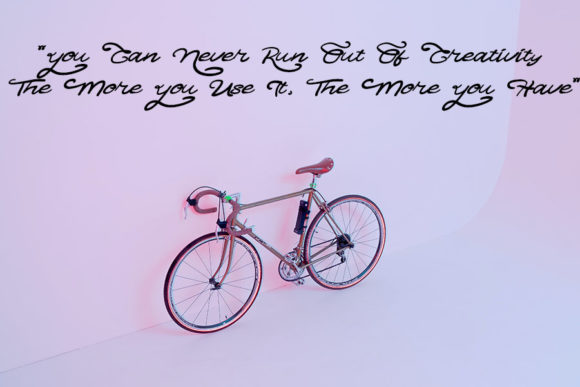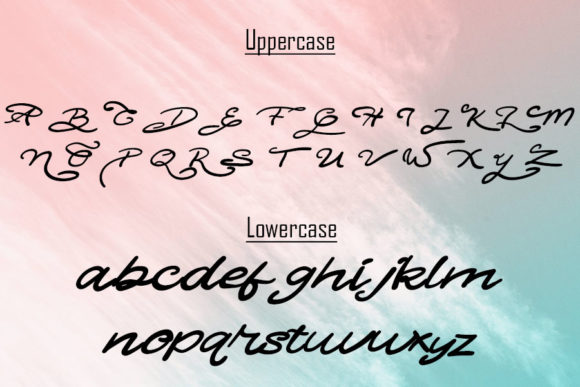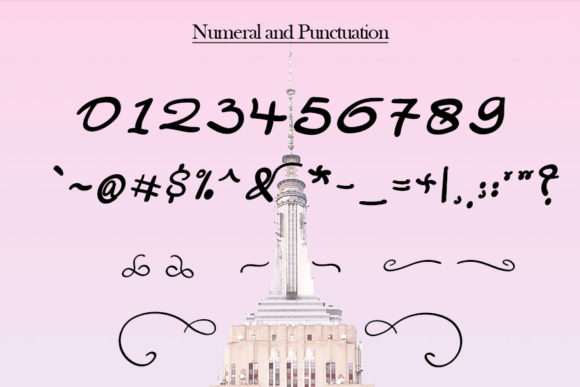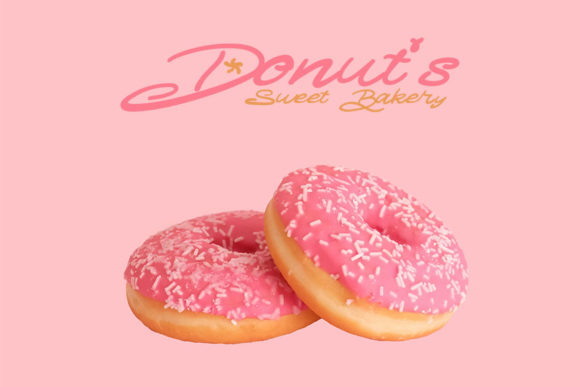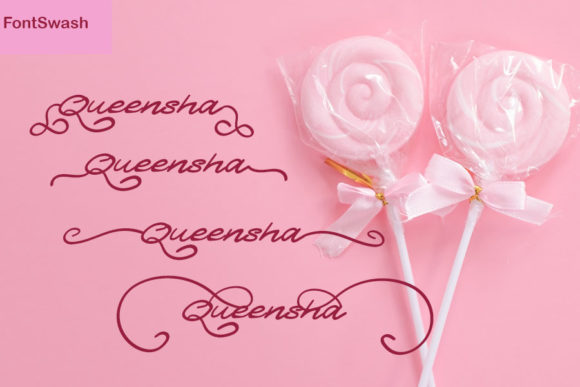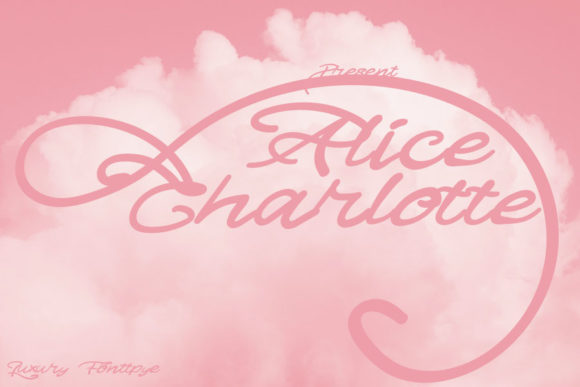
Alice Charlotte Font: Elevate Your Creativity with this Unique Handwritten Font
Are you a designer, crafter, or creative enthusiast looking for a font that can take your projects to the next level? Look no further than the Alice Charlotte font, a beautifully designed handwritten font that is sure to become a true favorite in your collection. In this article, we’ll dive into the features and benefits of the Alice Charlotte font, and explore how it can help you bring your creative ideas to life.
A Unique and Elegant Design
The Alice Charlotte font is a one-of-a-kind handwritten font that exudes elegance and sophistication. Its unique design makes it perfect for a wide range of creative projects, from branding and advertising to crafting and DIY tutorials. The font’s flowing lines and delicate curves give it a personal and approachable feel, making it ideal for projects that require a touch of warmth and personality.
One of the standout features of the Alice Charlotte font is its PUA (Private Use Area) encoding. This means that all glyphs and swashes are easily accessible, allowing you to get creative with your projects without any hassle. With PUA encoding, you can access a wide range of special characters, including ligatures, ornaments, and swashes, giving you endless possibilities for customization and design.
The Alice Charlotte font is incredibly versatile, making it suitable for a wide range of creative projects. Here are just a few ideas to get you started:
- Branding and Advertising: Use the Alice Charlotte font to create stunning logos, business cards, and marketing materials that showcase your brand’s personality and style.
- Crafting and DIY: Add a personal touch to your crafting and DIY projects, such as handmade cards, gift tags, and journal pages, with the Alice Charlotte font.
- Social Media Graphics: Create eye-catching social media graphics, including Facebook posts, Instagram stories, and Pinterest pins, using the Alice Charlotte font.
- Web Design: Use the Alice Charlotte font to add a touch of elegance and sophistication to your website or blog.
Why Choose the Alice Charlotte Font?
So why choose the Alice Charlotte font over other fonts on the market? Here are just a few reasons:
- Unique Design: The Alice Charlotte font is a one-of-a-kind design that will set your projects apart from the crowd.
- Ease of Use: The font’s PUA encoding makes it easy to access all glyphs and swashes, saving you time and effort.
- Versatility: The Alice Charlotte font is suitable for a wide range of creative projects, from branding and advertising to crafting and DIY.
- High-Quality: The font is expertly designed to deliver high-quality results, ensuring that your projects look professional and polished.
Get Creative with Alice Charlotte Font
If you’re looking for a font that can help you take your creative projects to the next level, look no further than the Alice Charlotte font. With its unique design, PUA encoding, and endless creative possibilities, this font is sure to become a favorite in your collection. So why wait? Download the Alice Charlotte font today and start bringing your creative ideas to life!